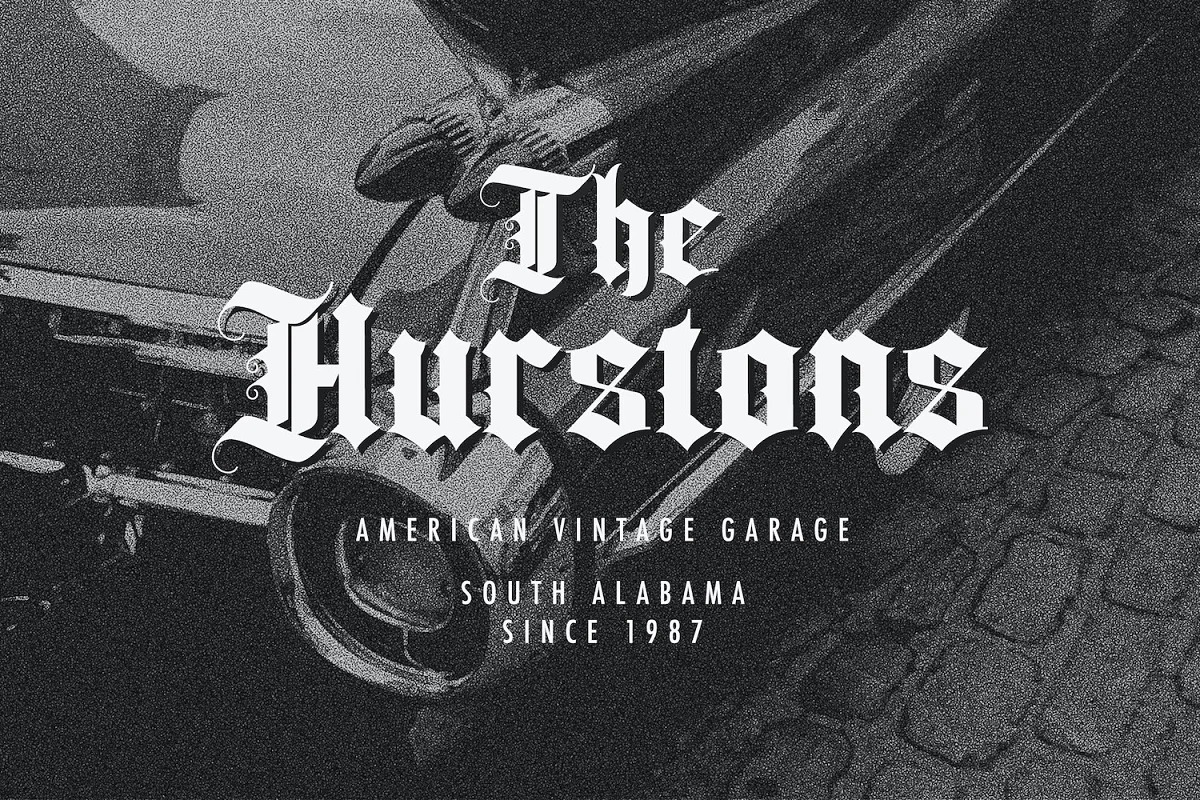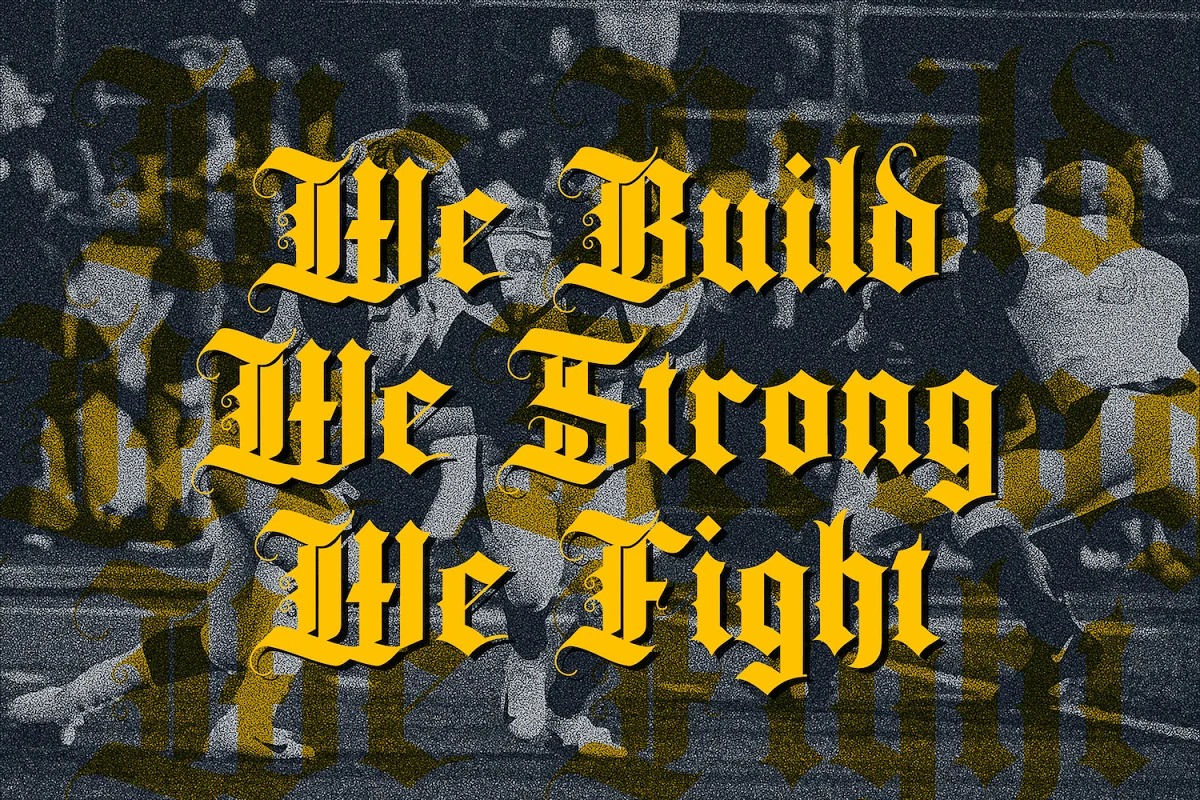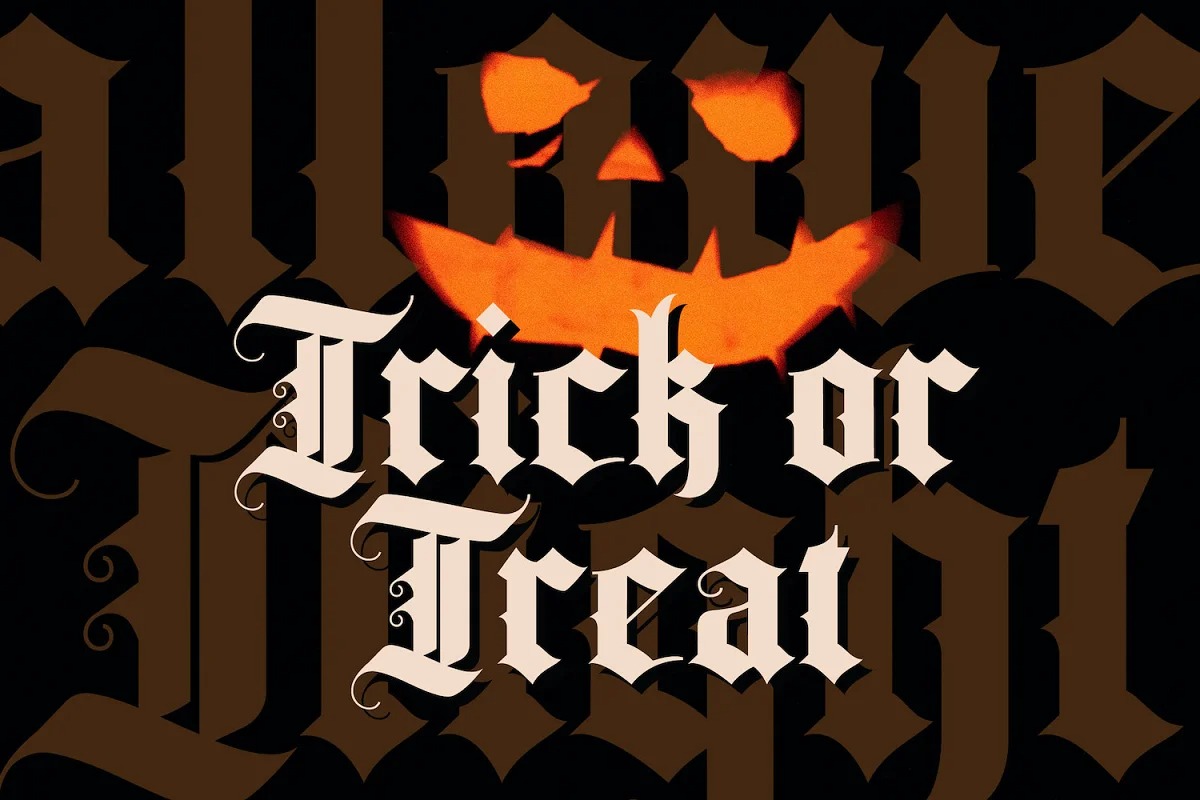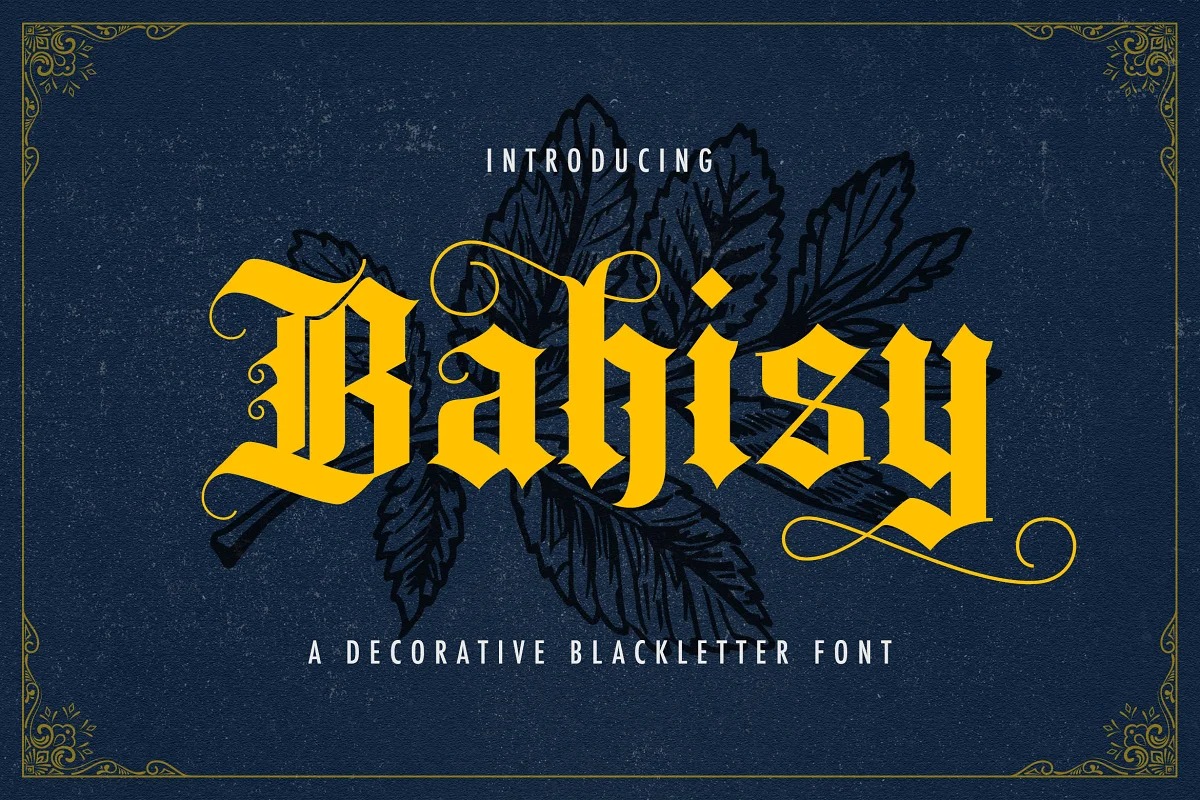
Bahisy Blackletter Font
This typeface is inspired by the classic victorian font style combined with western style which makes the Bahisy Font look cool and unique. Add this font to your favorite creative ideas and notice how it makes them stand out! This font is perfect for a bold and vintage Victorian concept design.